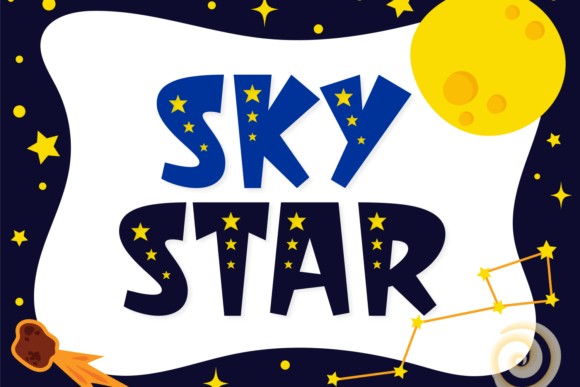
Sky Star Font: A Celestial Typeface for Your Design Needs
The Sky Star Font is a decorative typeface that has captured the hearts of designers and artists alike with its whimsical charm and vintage allure. Crafted by 7ntypes, this exquisite font is infused with the magic of cute stars, making it perfect for a wide range of design applications, from star tattoos to stylish magazine layouts.
Key Features of Sky Star Font
- Multilingual Support: The Sky Star Font boasts multilingual support, making it a popular choice among designers who work with clients from diverse linguistic backgrounds.
- Versatility: This font is versatile and can be used for a wide range of applications, from school projects to stylish magazine layouts, T-shirt designs, and children’s fonts.
- Fun yet Elegant: The Sky Star Font is a delightful combination of fun and elegance, making it an excellent pick for book covers, logotype fonts, and any design project that requires a dash of charm.
Design Applications of Sky Star Font
The Sky Star Font is perfect for designers who want to add a touch of whimsy and charm to their design projects. Here are some design applications where this font can be used:
- Star Tattoos: The Sky Star Font is perfect for creating star tattoos that are both stylish and meaningful.
- Cosmos-Inspired Designs: This font can be used to translate the magic of the cosmos into letters, making it perfect for designs that require a celestial theme.
- Children’s Fonts: The Sky Star Font is a great choice for children’s fonts, as it is fun, playful, and engaging.
- Book Covers: This font can be used to create eye-catching book covers that are both stylish and elegant.
- Logotype Fonts: The Sky Star Font can be used as a logotype font for businesses that want to create a brand identity that is both fun and sophisticated.
- T-Shirt Designs: This font can be used to create stylish T-shirt designs that are perfect for casual wear.
- Magazine Layouts: The Sky Star Font can be used to create stylish magazine layouts that are both elegant and engaging.
Benefits of Using Sky Star Font
The Sky Star Font offers several benefits to designers and artists, including:
- Unique Design: The Sky Star Font has a unique design that sets it apart from other fonts.
- Easy to Read: This font is easy to read, making it perfect for designs that require a high level of legibility.
- Customizable: The Sky Star Font can be customized to suit the needs of individual designers and artists.
- High-Quality: This font is of high quality, making it perfect for professional design applications.
The Sky Star Font is a versatile and elegant typeface that is perfect for designers and artists who want to add a touch of whimsy and charm to their design projects. With its multilingual support, fun yet elegant design, and high-quality features, this font is perfect for a wide range of design applications. Whether you’re creating star tattoos, cosmos-inspired designs, or stylish magazine layouts, the Sky Star Font is an excellent choice.